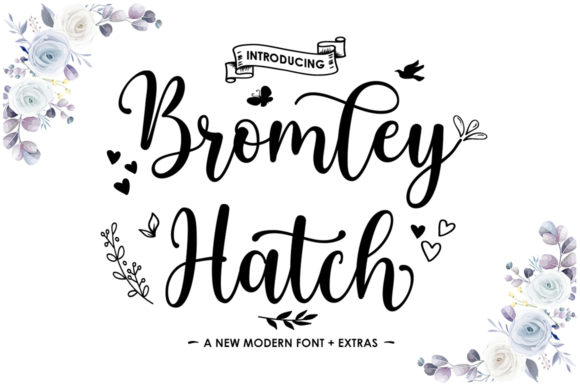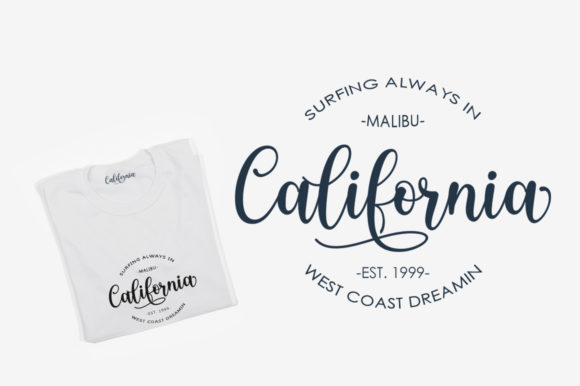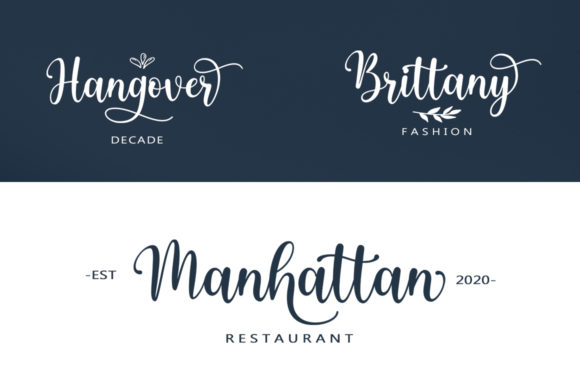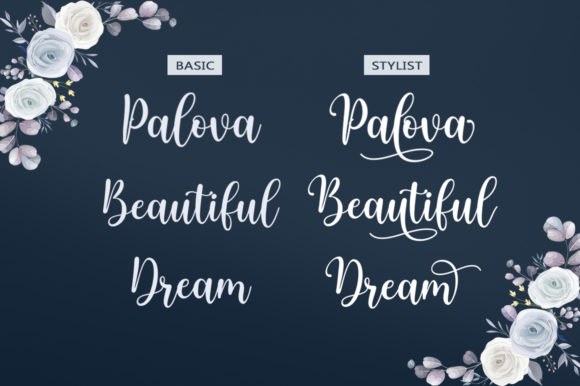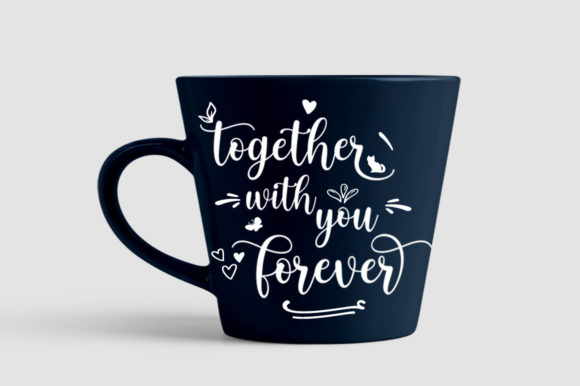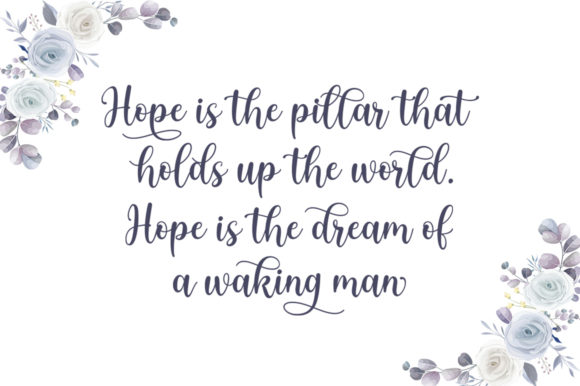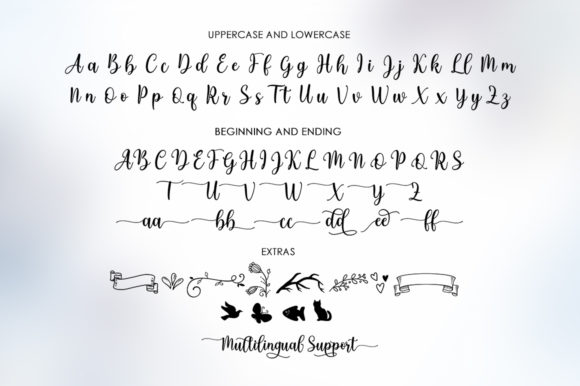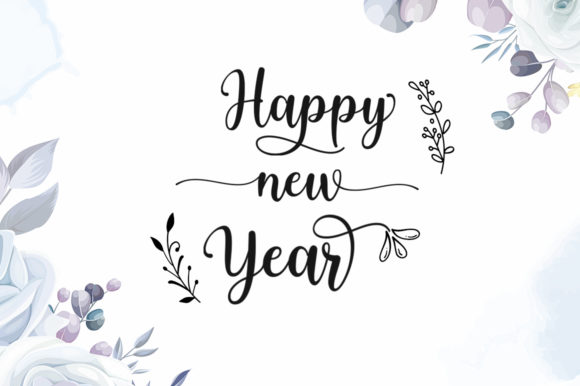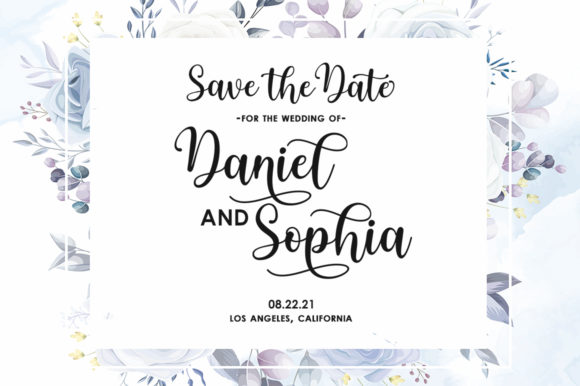
Bromley Hatch Script Font
Bromley Hatch Script – With Extras is a charming handwritten font that comes with cute nature-themed elements. This font is perfect for adding a touch of whimsy and playfulness to your projects.
The handcrafted style of Bromley Hatch Script gives it a warm and friendly appearance, making it suitable for a variety of design purposes. Whether you’re creating invitations, greeting cards, logos, or any other project that needs a touch of sweetness, this font can brighten up your design and make it stand out.
What sets Bromley Hatch Script apart is its collection of extras, which includes various nature-themed elements such as leaves, flowers, and other decorative elements. These extras can be easily accessed through the font’s PUA encoding, allowing you to effortlessly incorporate them into your designs. Whether you want to add a floral accent or create a unique composition, these extras provide you with additional creative options.
The PUA (Private Use Area) encoding also ensures that you can access all of the glyphs and swashes effortlessly. This means you can easily customize and enhance your text with alternate characters, ligatures, and stylistic variations to create a unique and personalized look.
The versatility of Bromley Hatch Script makes it suitable for a wide range of projects. From children’s designs and crafts to nature-inspired branding and stationery, this font adds a touch of whimsy and charm. Its handwritten style gives it a natural and authentic feel, adding a personal and human touch to your designs.
In terms of legibility, Bromley Hatch Script maintains a good balance between readability and its playful nature. The letters are designed with clarity in mind, ensuring that your message is conveyed effectively while still retaining the font’s unique handwritten characteristics.
In summary, Bromley Hatch Script – With Extras is a delightful handwritten font with cute nature-themed elements. It adds a touch of playfulness and whimsy to your projects, making them more visually appealing. With its PUA encoding, you have easy access to a variety of glyphs and swashes, allowing you to customize and enhance your designs. Whether you’re working on invitations, logos, or other creative projects, Bromley Hatch Script can brighten up your designs and create a memorable impact.